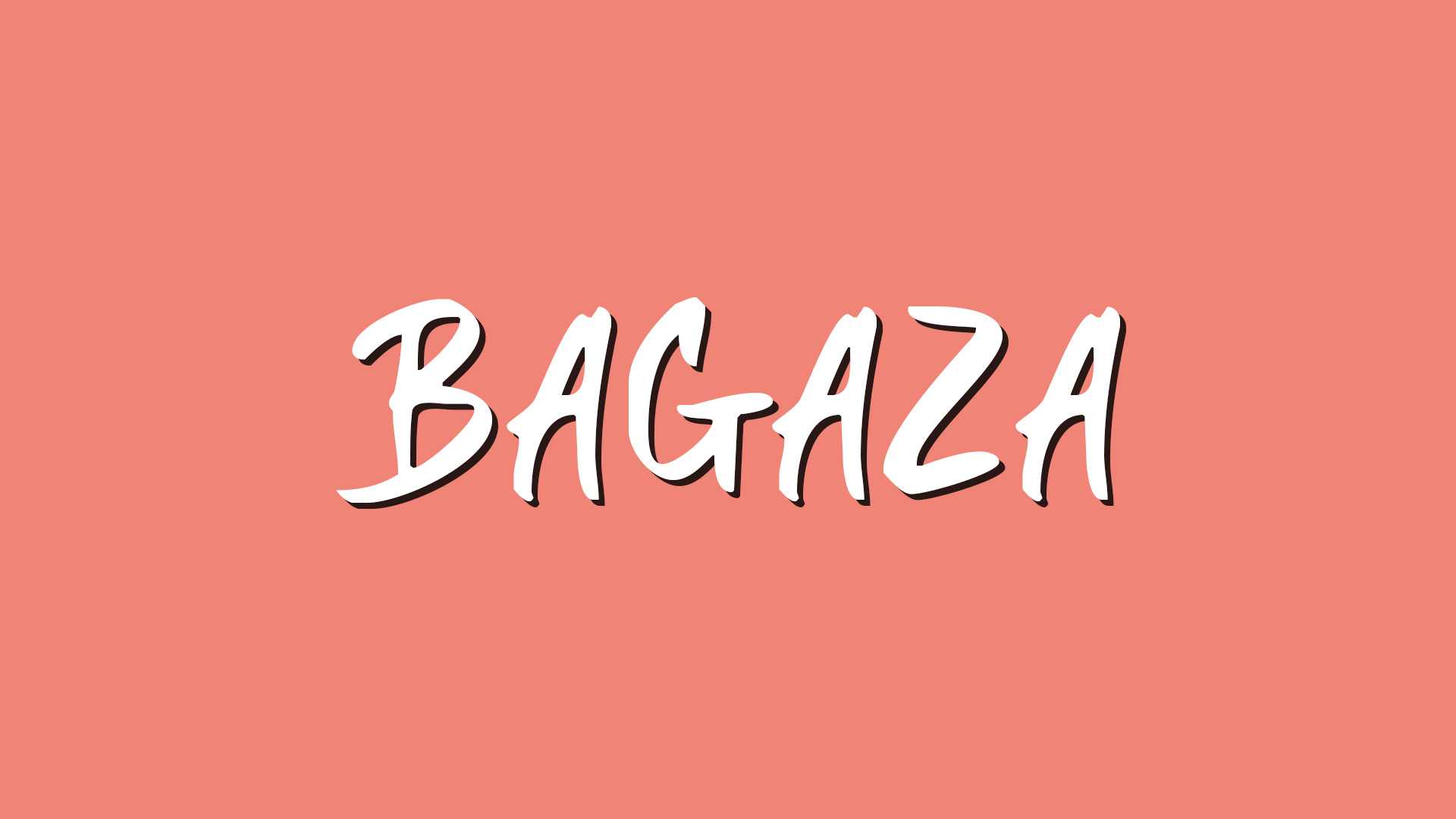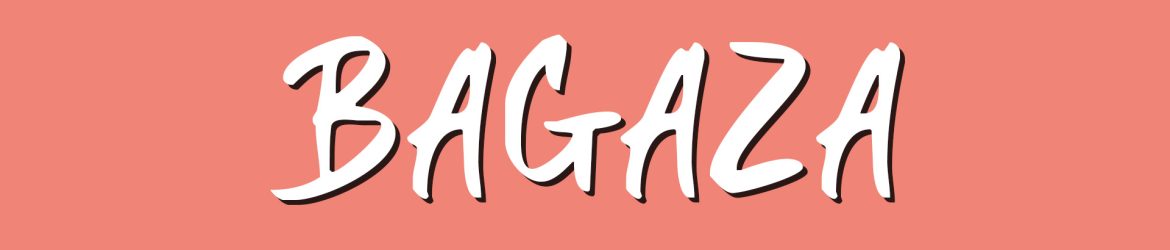
Download Bagaza font, a dynamic brush font that captures the exhilarating rush of fast and fluid strokes in every letter. Bagaza font charged by a lively and high-energy design, with each letter exuding a sense of motion.